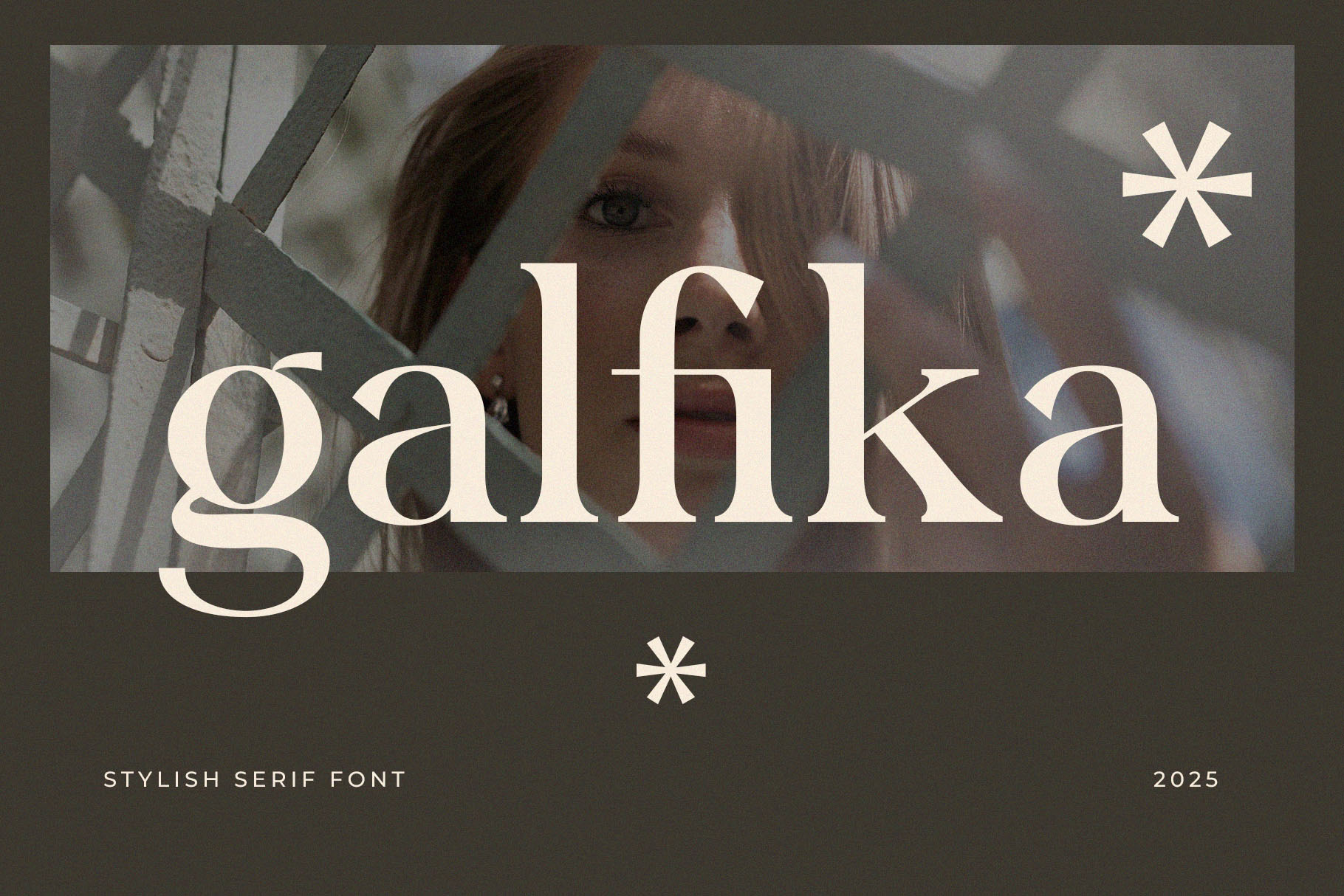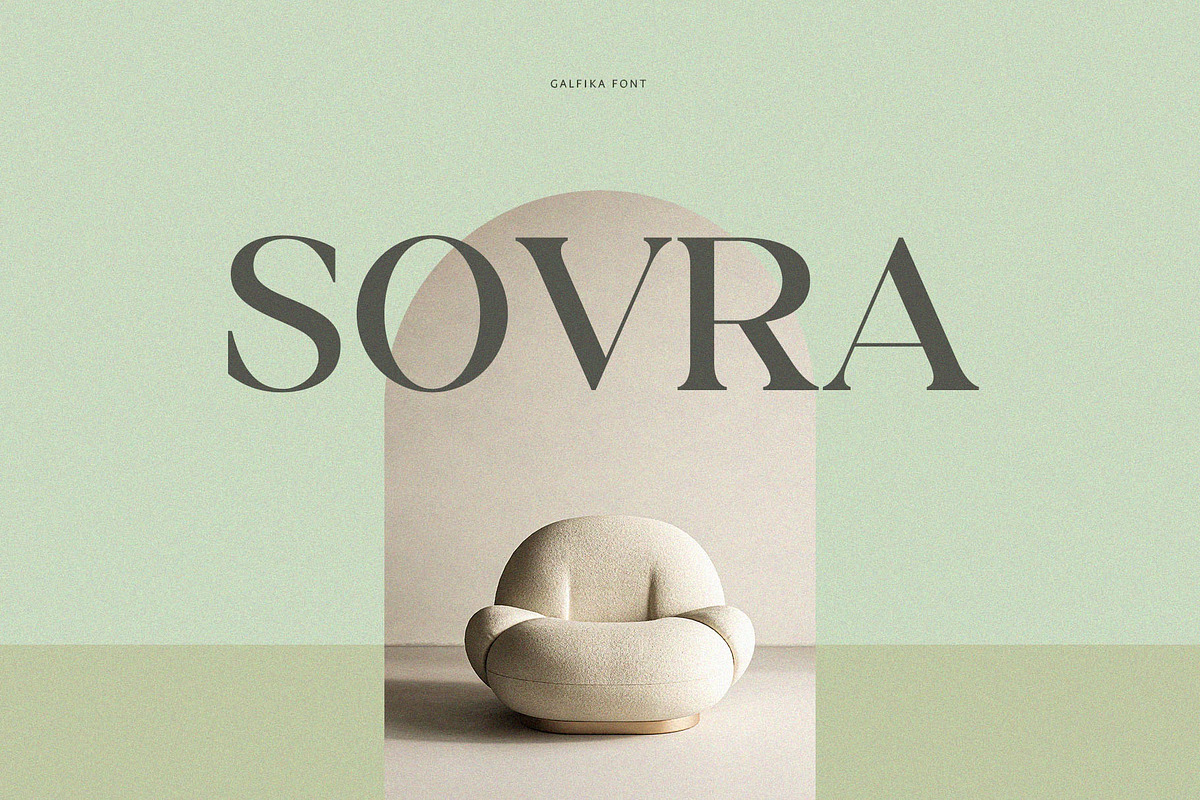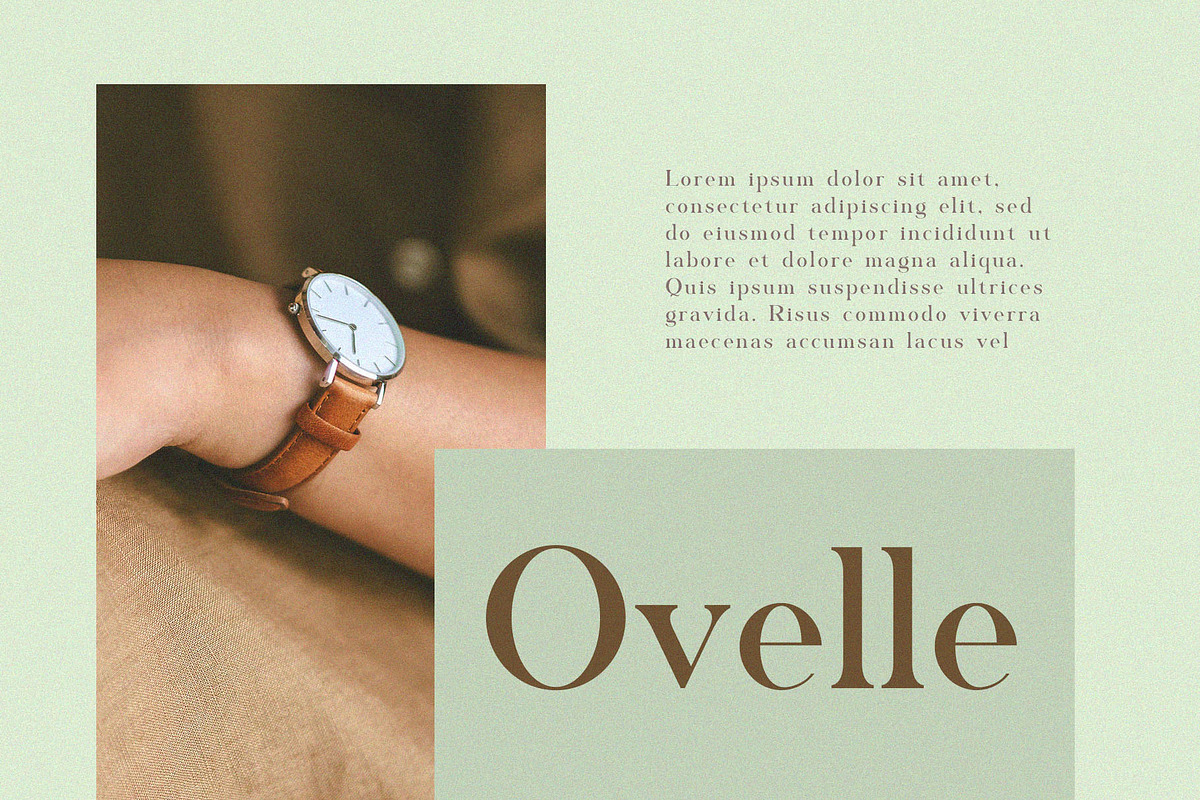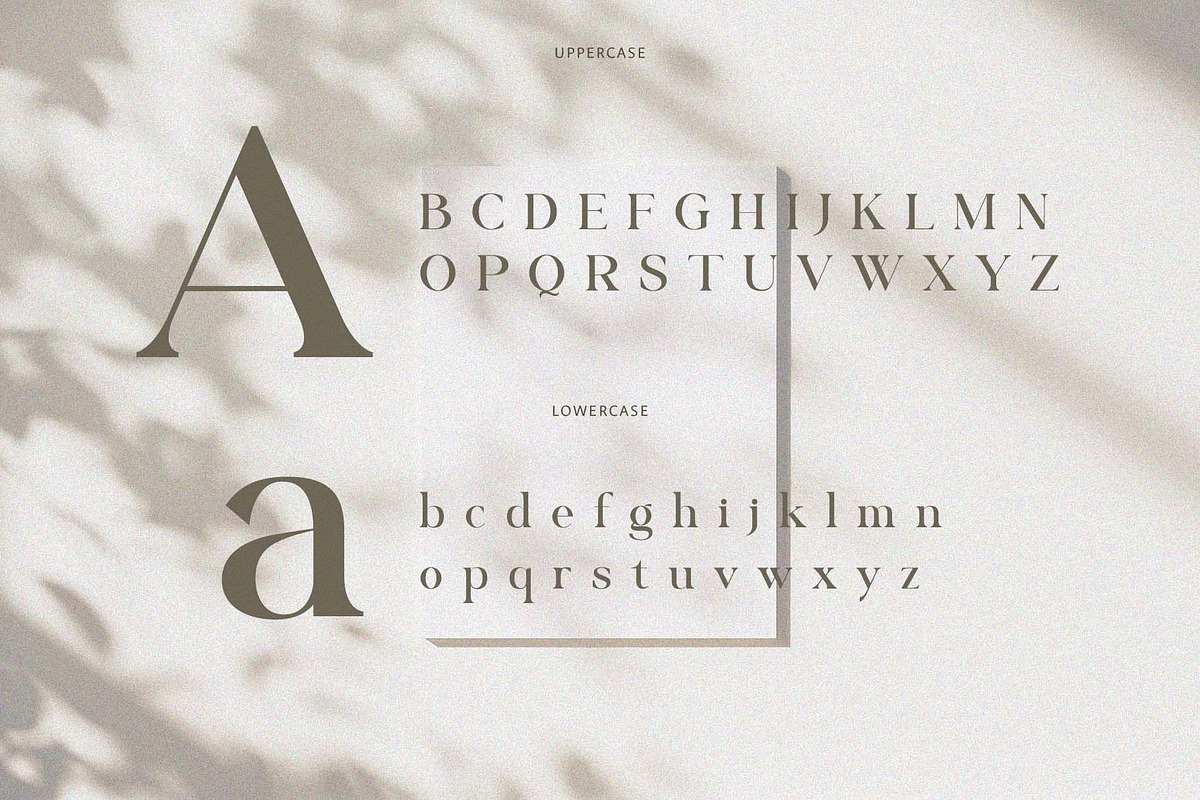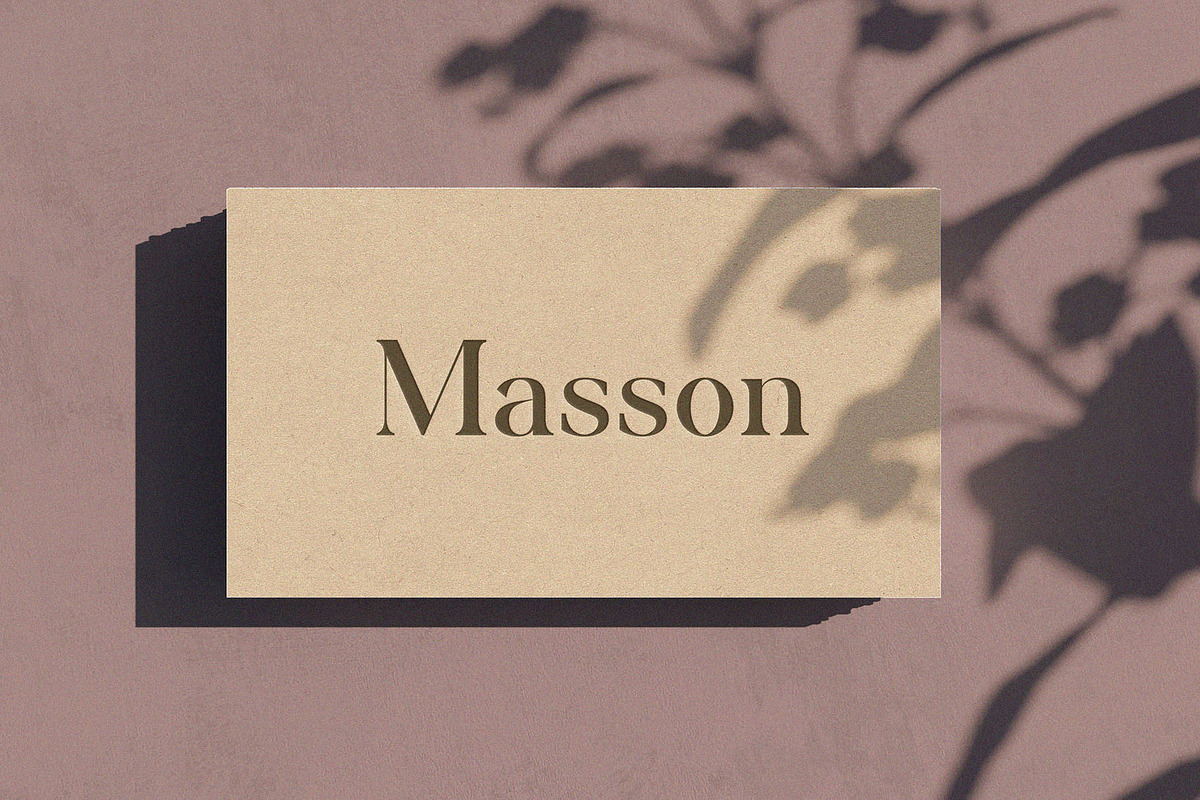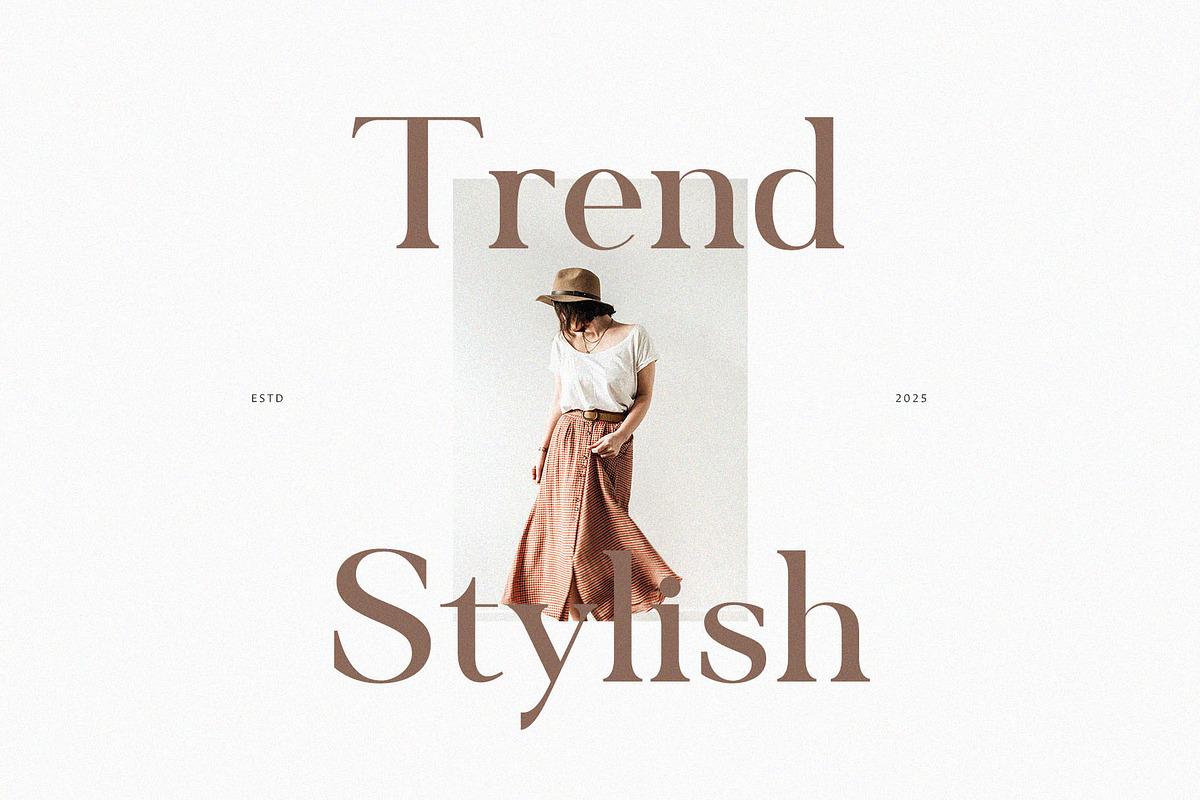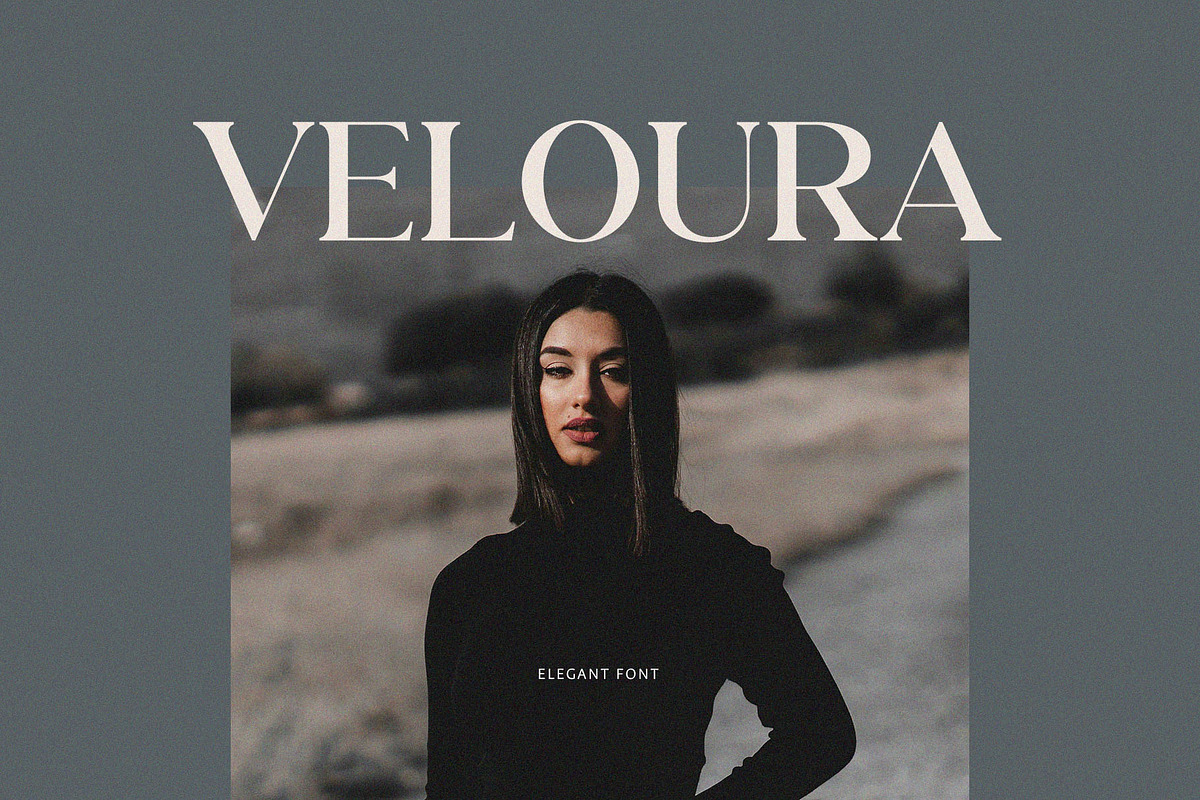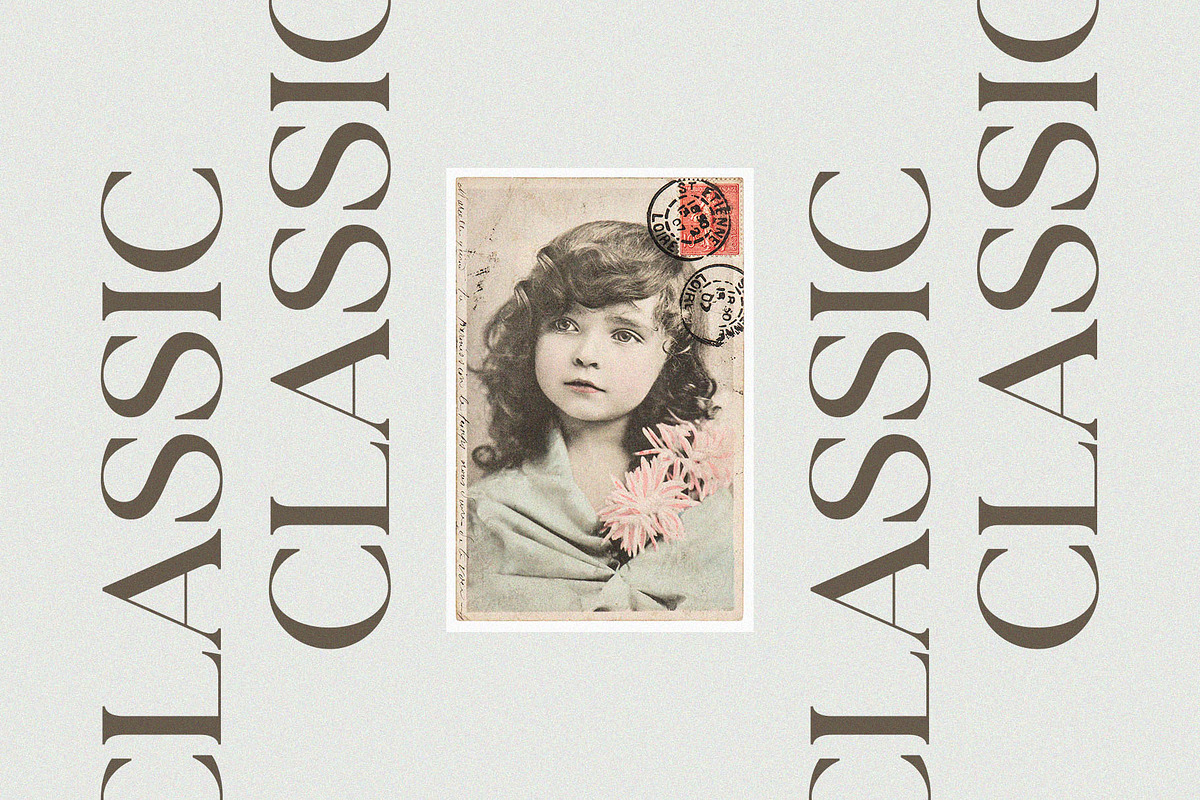
Galfika – Stylish Serif Font
Introducing Galfika Elegant Serif Font. Galfika is a modern and classy typeface, best used as a display for headings, logos, branding, magazines, product packaging and invitations. Galfika come with clean lines and smooth curves give any project an extra touch of class.